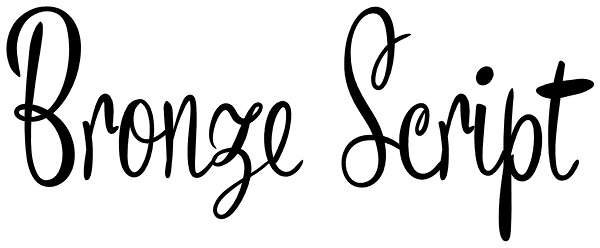
Bronze Script
Let Bronze Script take you back. Back to the golden age of vintage when hand drawn scripts appeared in every form of publication. A different time when everything moved slower, lettering was done with expertise, and every detail awarded care and...